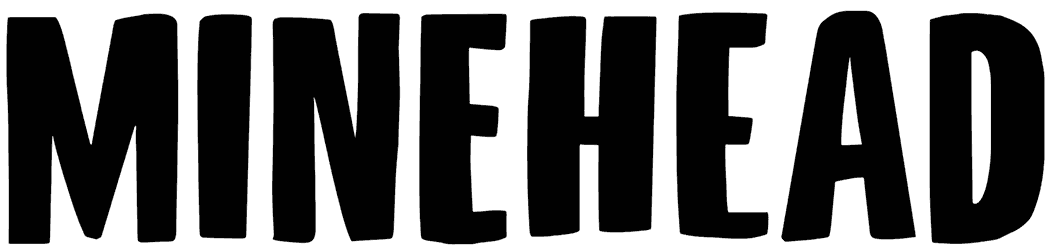
Minehead Font
Minehead is a cute sans serif font that, due to its whimsical style, is really perfect for all of your graphic needs, including children’s book covers, illustrations, educational brochures, flyers, or gift cards. Aside from the undeniable fact that this all-caps font doesn’t fully support numbers, it can convey a sense of tenderness, vivacity, love, and childishness.